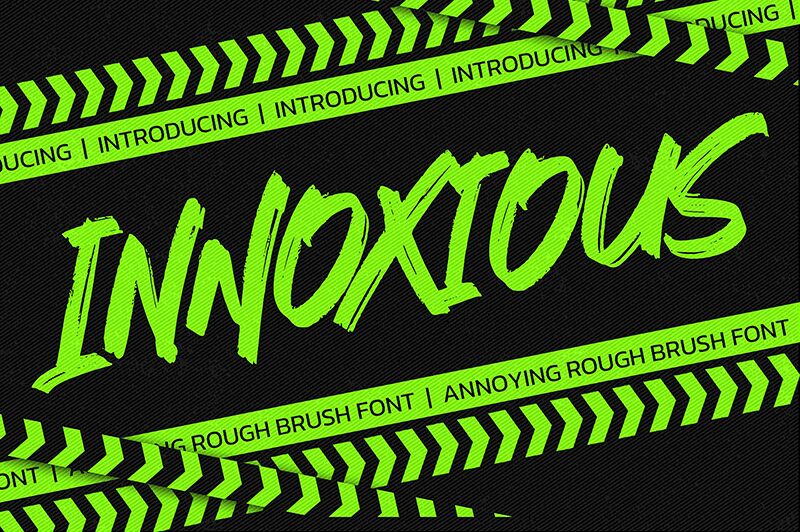
innoxious
Embrace the raw energy and spontaneous flair of INNOXIOUS, a brush font meticulously crafted by Gassstype. With its semi-bold weight, this typeface captures the essence of hand-painted strokes, delivering an authentic rough texture that truly stands out. Designed with Procreate before being honed into a polished vector format, INNOXIOUS boasts natural-looking characters that add a modern twist to any project.
Ideal for branding endeavors, logo creation, impactful quotes, or product packaging—this font infuses your designs with its distinctive charm. Moreover, it's not just about looks; functionality is enhanced through the inclusion of OpenType ligatures. These thoughtful details allow you to convey messages with both visual appeal and typographic sophistication.
Dive into the world of INNOXIOUS and let your creative projects be imbued with its cool yet approachable personality—a perfect match for designers seeking to make a memorable statement.